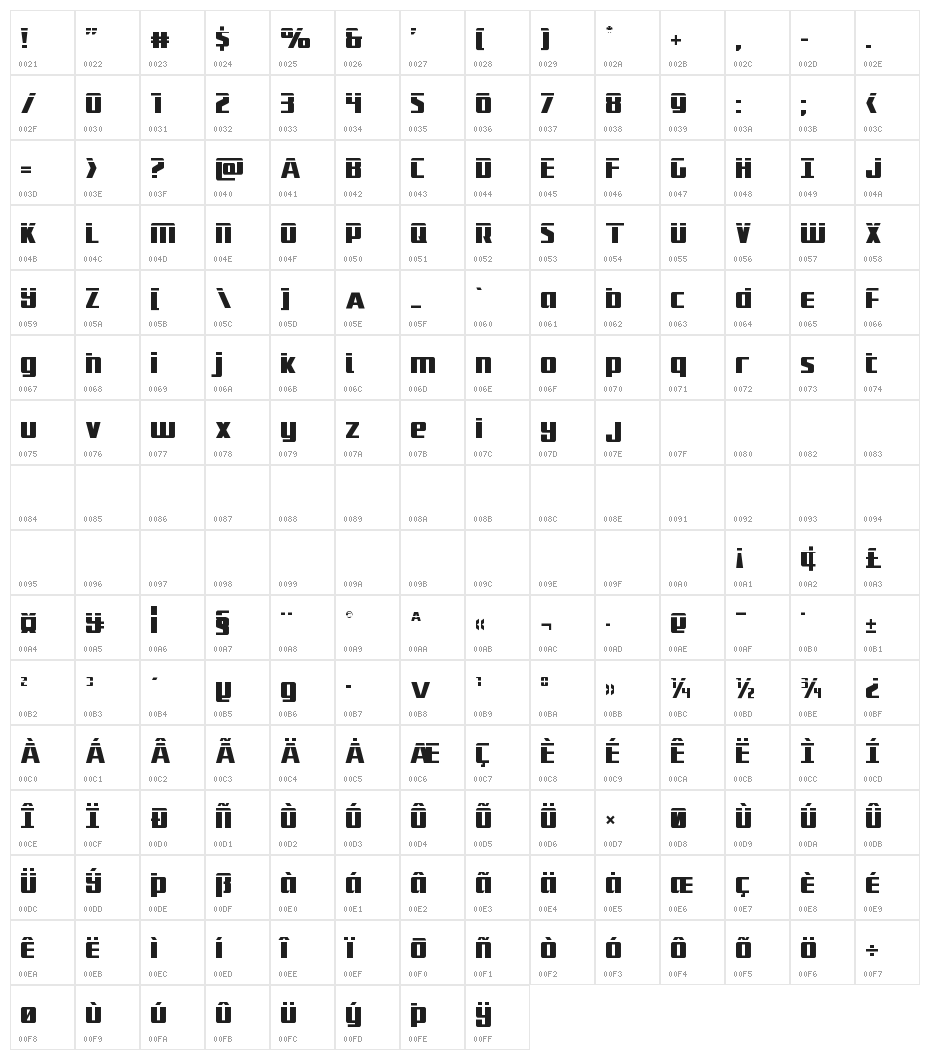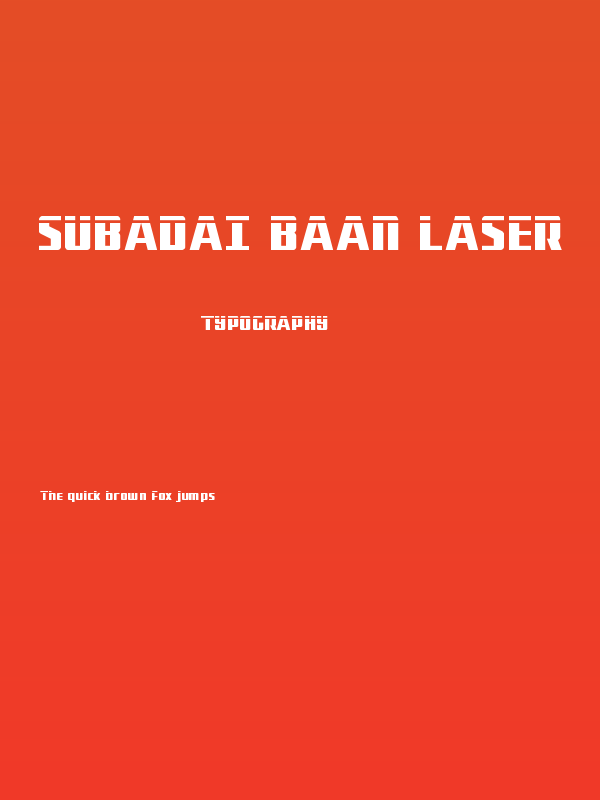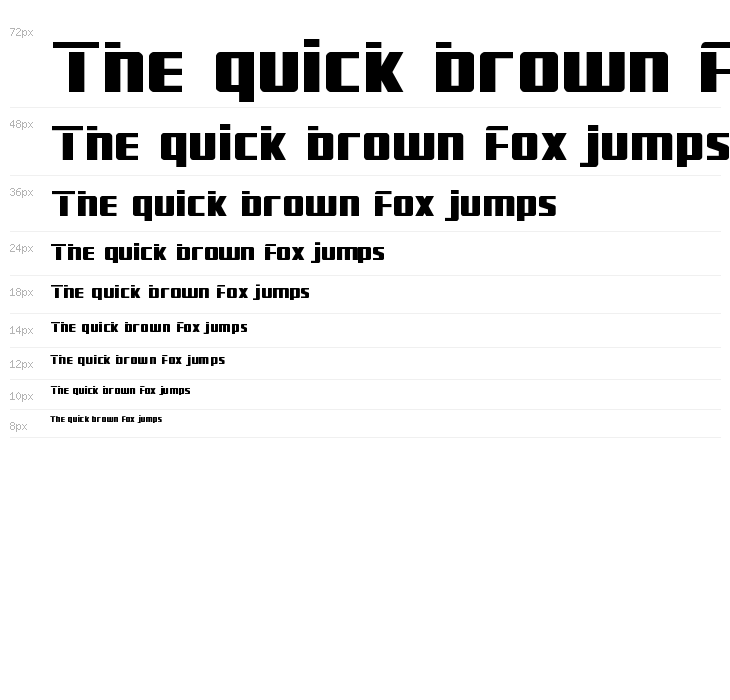
Subadai Baan Laser Font
Subadai Baan Laser Description
This font features a bold, geometric design with a futuristic and industrial aesthetic. The characters are constructed with thick, uniform strokes that create a strong visual impact. The uppercase and lowercase letters maintain a consistent height, giving the font a monospaced appearance. The angular edges and sharp corners contribute to its modern and edgy style. The numerals and special characters are designed to match the overall boldness and geometric structure, ensuring a cohesive look across all text. This font is ideal for projects that require a strong, assertive presence.
| Proposed Projects | Ideal for branding, posters, video game graphics, and any project needing a strong, modern look. |